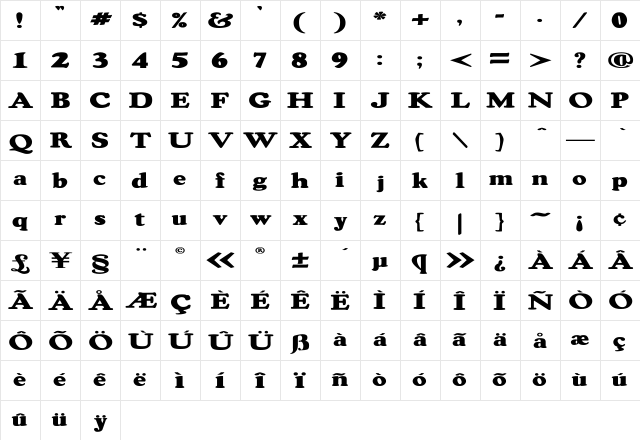
OSWALDblack Ex Regular Font Preview
OSWALDblack Ex Regular
OSWALDblack Ex Regular Font Details
Design Context for OSWALDblack Ex Typeface
OSWALDblack Ex takes a measured approach to typography — its balanced proportions and neutral character make it a reliable workhorse for both digital and print work.